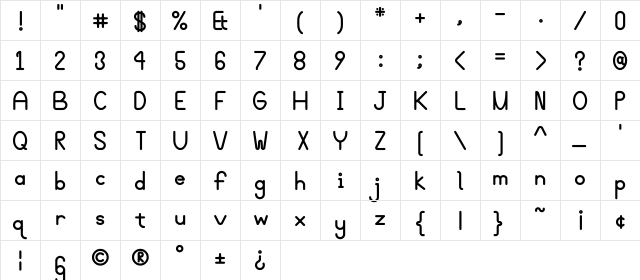
BloomingGroveAltBold Bold
Design Context for BloomingGroveAltBold Typeface
BloomingGroveAltBold offers clean, dependable letterforms without strong stylistic allegiance, making it a practical choice for designers who need flexibility. Its bold stroke weight gives it real presence on the page.
Pro Tip: Use BloomingGroveAltBold in both headline and body roles to test its range before committing to a single application.